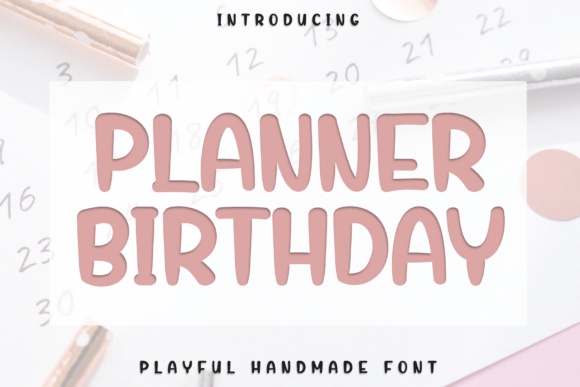
Introducing Planner Birthday Font: The Perfect Addition to Your Celebration Designs
Are you looking for a font that can add a touch of fun and playfulness to your birthday cards, party invites, and other celebration designs? Look no further than Planner Birthday Font! This cheerful display font is designed to bring a joyful and lighthearted vibe to your designs, making it perfect for any occasion that calls for celebration.
What is Planner Birthday Font?
Planner Birthday Font is a fun and playful display font that features bouncy letters with a cheerful style. Its unique design makes it stand out from other fonts, adding a touch of whimsy and excitement to any design. Whether you’re creating birthday cards, party invitations, or social media posts, Planner Birthday Font is the perfect choice to make your designs pop.
Key Features of Planner Birthday Font
- Fun and Playful Design: Planner Birthday Font features a fun and playful design that is perfect for birthday cards, party invites, and other celebration designs.
- Cheerful Style: The font has a cheerful style that adds a joyful and lighthearted vibe to your designs.
- Bouncy Letters: The bouncy letters of Planner Birthday Font make it stand out from other fonts, adding a touch of whimsy and excitement to your designs.
- Perfect for Celebrations: Planner Birthday Font is perfect for any occasion that calls for celebration, including birthdays, parties, and other special events.
How to Use Planner Birthday Font
- Use it for Headings: Planner Birthday Font is perfect for headings and titles, adding a touch of fun and playfulness to your designs.
- Pair it with Other Fonts: Pair Planner Birthday Font with other fonts to create a unique and interesting design.
- Experiment with Colors: Experiment with different colors to find the perfect combination that matches your design.
Benefits of Using Planner Birthday Font
There are many benefits to using Planner Birthday Font in your designs. Here are a few:
- Adds a Touch of Fun and Playfulness: Planner Birthday Font adds a touch of fun and playfulness to your designs, making them more engaging and interesting.
- Perfect for Celebrations: Planner Birthday Font is perfect for any occasion that calls for celebration, including birthdays, parties, and other special events.
- Versatile: Planner Birthday Font can be used in a variety of designs, from birthday cards to party invitations and social media posts.
Tips and Tricks for Using Planner Birthday Font
Here are a few tips and tricks for using Planner Birthday Font:
- Use it for Kids’ Designs: Planner Birthday Font is perfect for kids’ designs, including birthday cards and party invitations.
- Experiment with Different Sizes: Experiment with different sizes to find the perfect size for your design.
- Pair it with Images: Pair Planner Birthday Font with images to create a unique and interesting design.
In conclusion, Planner Birthday Font is a fun and playful display font that is perfect for birthday cards, party invites, and any celebration. Its bouncy letters bring a joyful and lighthearted vibe to your designs, making it perfect for any occasion that calls for celebration. With its easy-to-use design and versatile style, Planner Birthday Font is a great addition to any designer’s toolkit.
- What is Planner Birthday Font?: Planner Birthday Font is a fun and playful display font that features bouncy letters with a cheerful style.